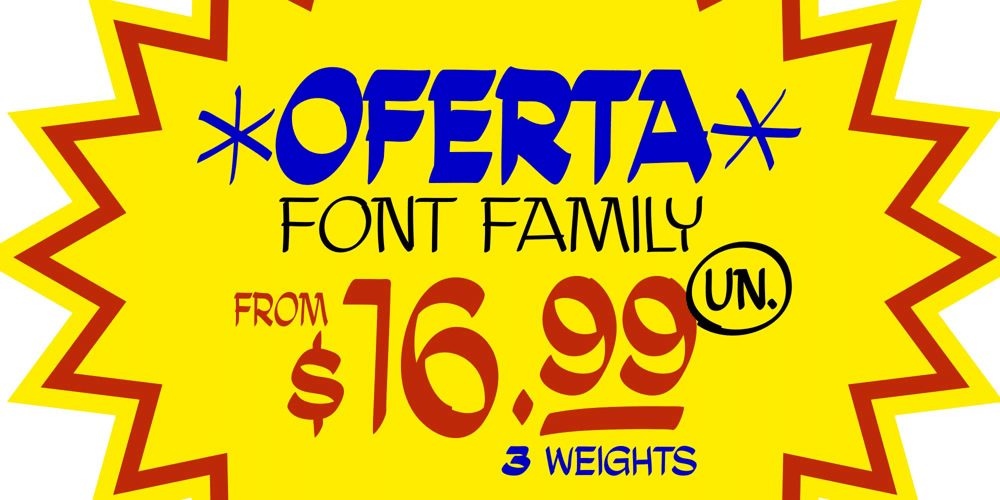
Oferta Font Family was designed by Rafael Bastos, Matheus Lopes and published by Supimpa. Oferta contains 3 styles and family package options. OFERTA© is a vernacular display typeface created by Supimpa Supply, our design studio, and inspired by the unique brazilian hand painted supermarket signs. It’s also a homage to all Cartazistas, the professionals who paints these posters with huge markers, paintbrushes, ink and, of course, talent. With over 180 characters and glyphs, this incredible collection can be your source of creativity when creating market signs, handmade posters, price tags, product descriptions and a lot of things that need a handcrafted touch. It comes in 3 weights, for a complete experience.Our special characters, alternates and ligatures will help you in supermarket-related themes (OFF!, SALE!, FRESH), and the discretionary ligatures included work like magic when typing prices, such as $1.99, £2,95, €33,49. Also, we’ve included cool ornaments, frames and shapes to add more graphic resources to your project.We hope you like it. Because we did it when creating! Try and Buy OFERTA© now!